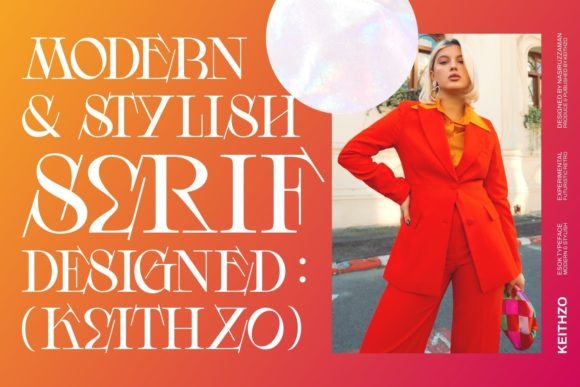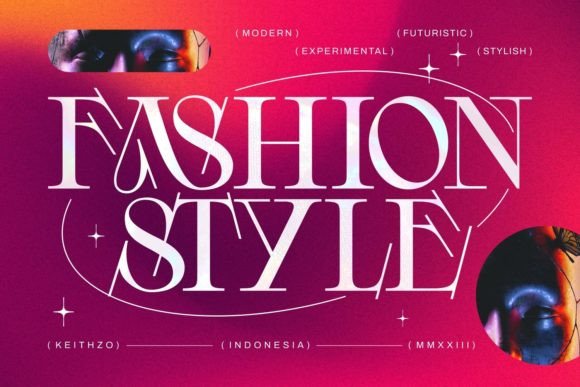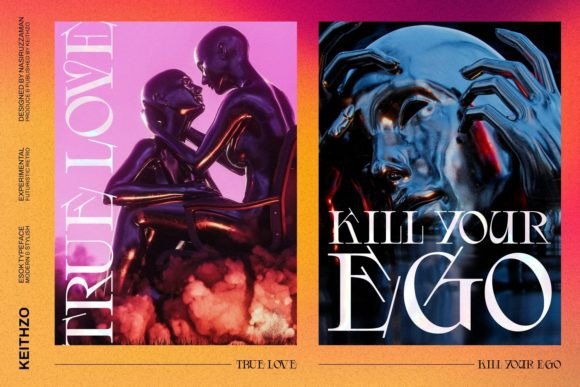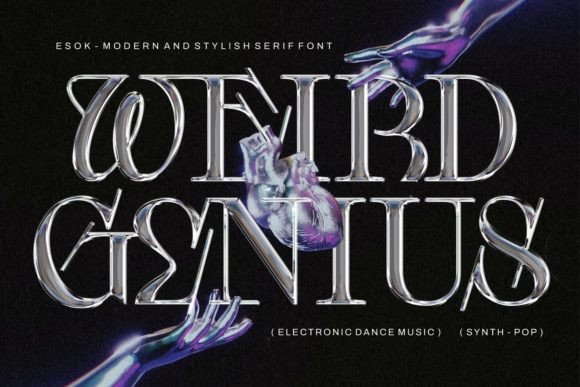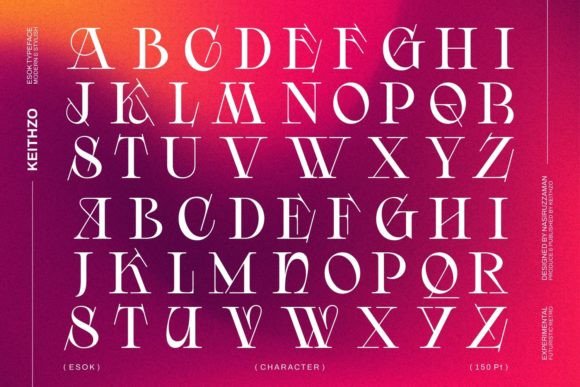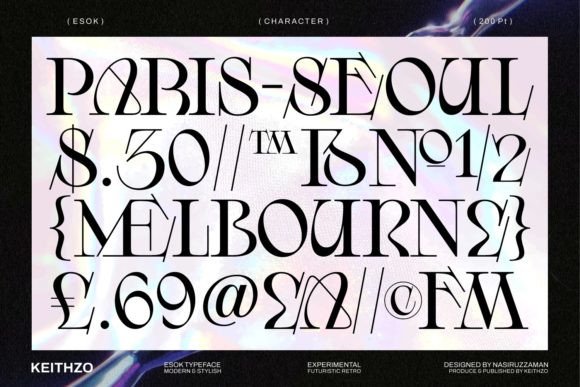
Introducing Esok Font: A Retro-Futuristic Serif Masterpiece
Are you tired of using the same old fonts for your designs? Look no further! Esok Font is here to revolutionize your creative projects with its unique blend of retro-futuristic style and high-contrast serif features. This stunning font is perfect for designers and crafters looking to add a touch of elegance and sophistication to their work.
What Makes Esok Font Stand Out?
Esok Font boasts a strong contrast between its vertical and horizontal bars, making it a true showstopper. Its mixed retro-futuristic design gives it a distinctive look that’s sure to grab attention. Whether you’re working on a logotype design, headline, poster, magazine, book cover, website, music poster, t-shirt design, or social media project, Esok Font is the perfect choice.
Key Features of Esok Font
- High-contrast serif font: Esok Font features a beautiful, high-contrast serif design that’s perfect for creating visually stunning text.
- Mixed retro-futuristic style: Its unique blend of retro and futuristic elements gives Esok Font a distinctive look that’s sure to set your designs apart.
- Versatile: Esok Font is suitable for a wide range of design projects, including logotype designs, headlines, posters, magazines, book covers, websites, music posters, t-shirt designs, branding, and social media.
Why Choose Esok Font?
Esok Font is the perfect choice for designers and crafters looking to add a touch of elegance and sophistication to their work. Its unique design and versatility make it an excellent addition to any design project. Here are just a few reasons why you should choose Esok Font:
- Stand out from the crowd: Esok Font’s distinctive design ensures that your projects will stand out from the crowd and grab attention.
- Save time and effort: Esok Font’s versatility and ease of use save you time and effort, allowing you to focus on the creative aspects of your project.
Tips and Tricks for Working with Esok Font
- Experiment with different sizes and colors: Esok Font looks great in a variety of sizes and colors, so don’t be afraid to experiment and find the perfect combination for your project.
- Pair with other fonts: Esok Font pairs well with other fonts, so try combining it with a sans-serif font for a striking contrast.
- Use it for headlines and titles: Esok Font is perfect for headlines and titles, where its high-contrast serif design can really shine.
Esok Font is a game-changer for designers and crafters looking to add a touch of elegance and sophistication to their work. Its unique blend of retro-futuristic style and high-contrast serif features makes it a versatile and eye-catching font that’s perfect for a wide range of design projects. With its PUA encoding and ease of use, Esok Font is a must-have for any designer or crafter looking to take their designs to the next level.